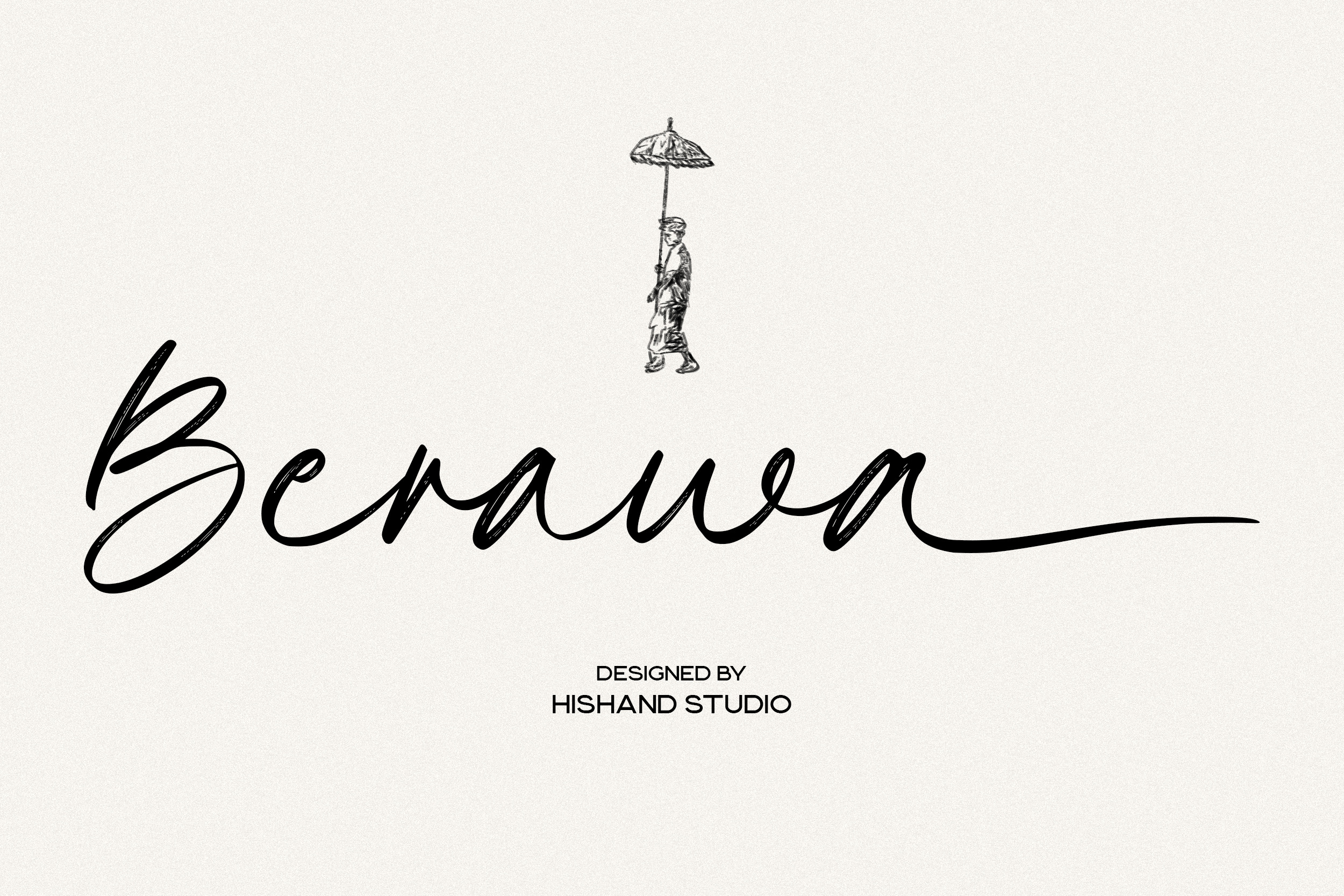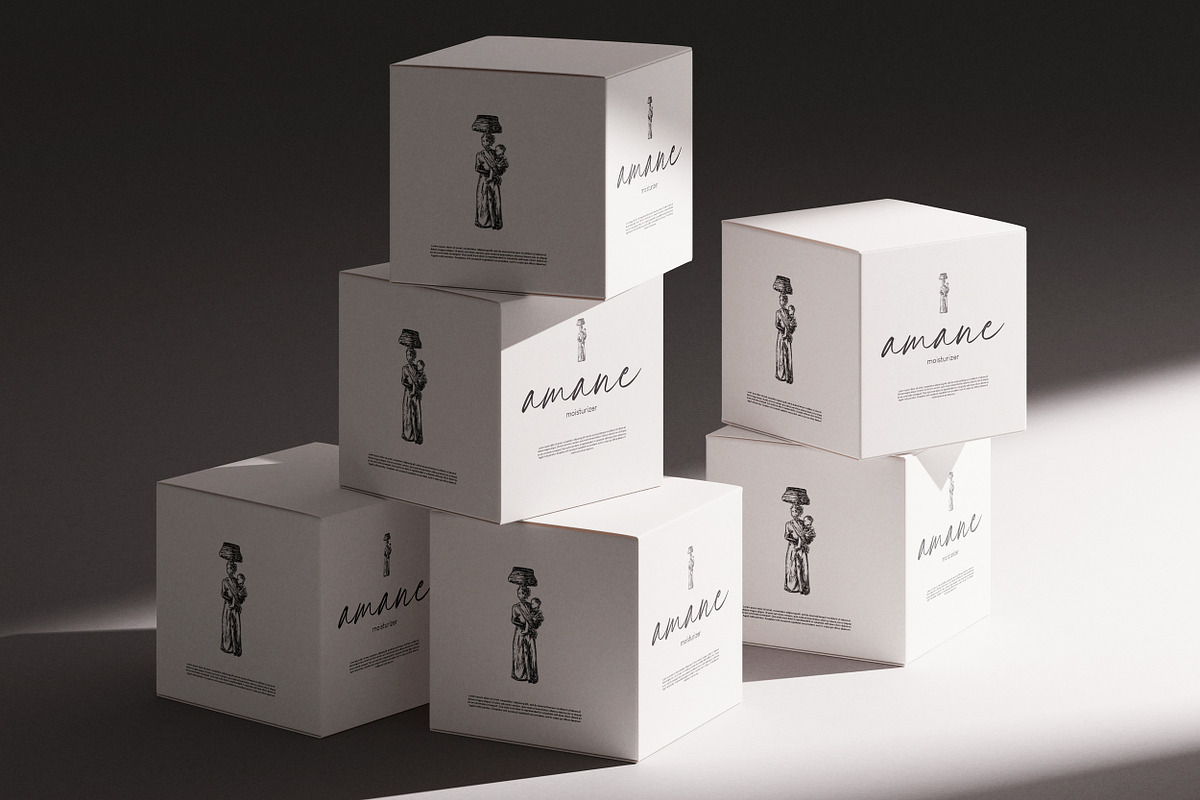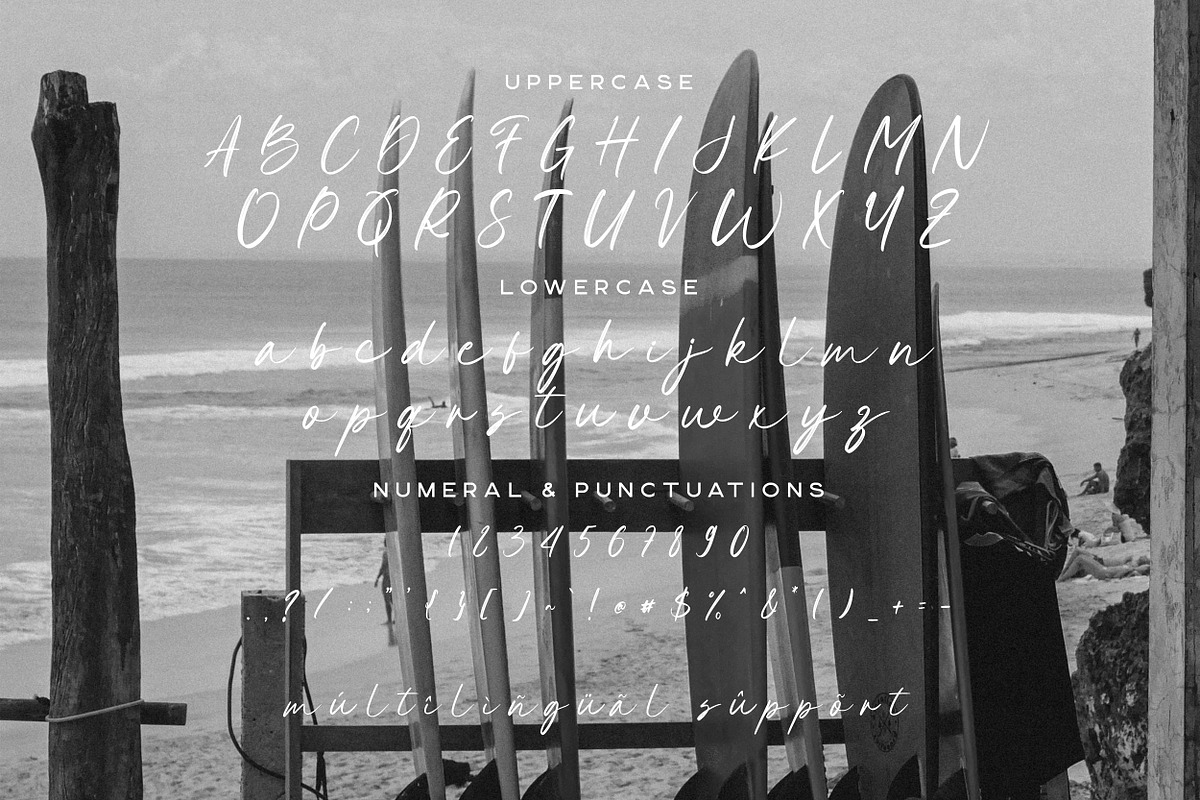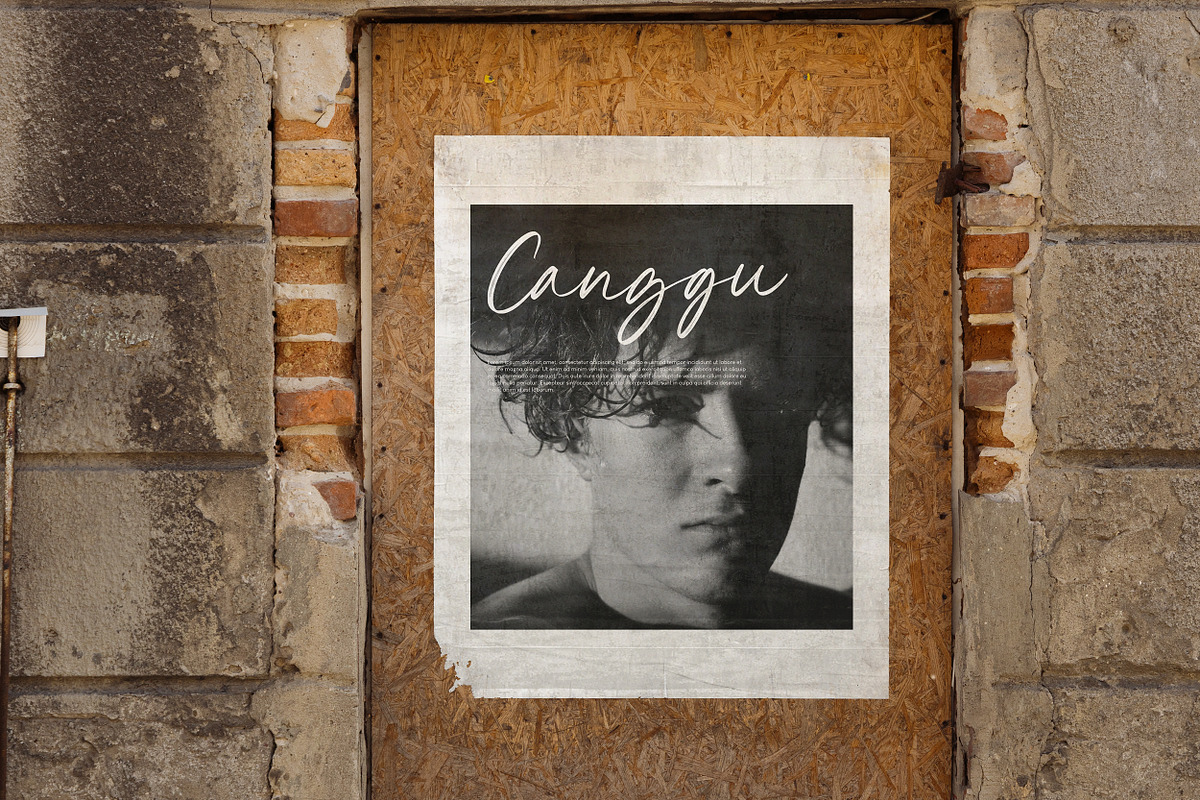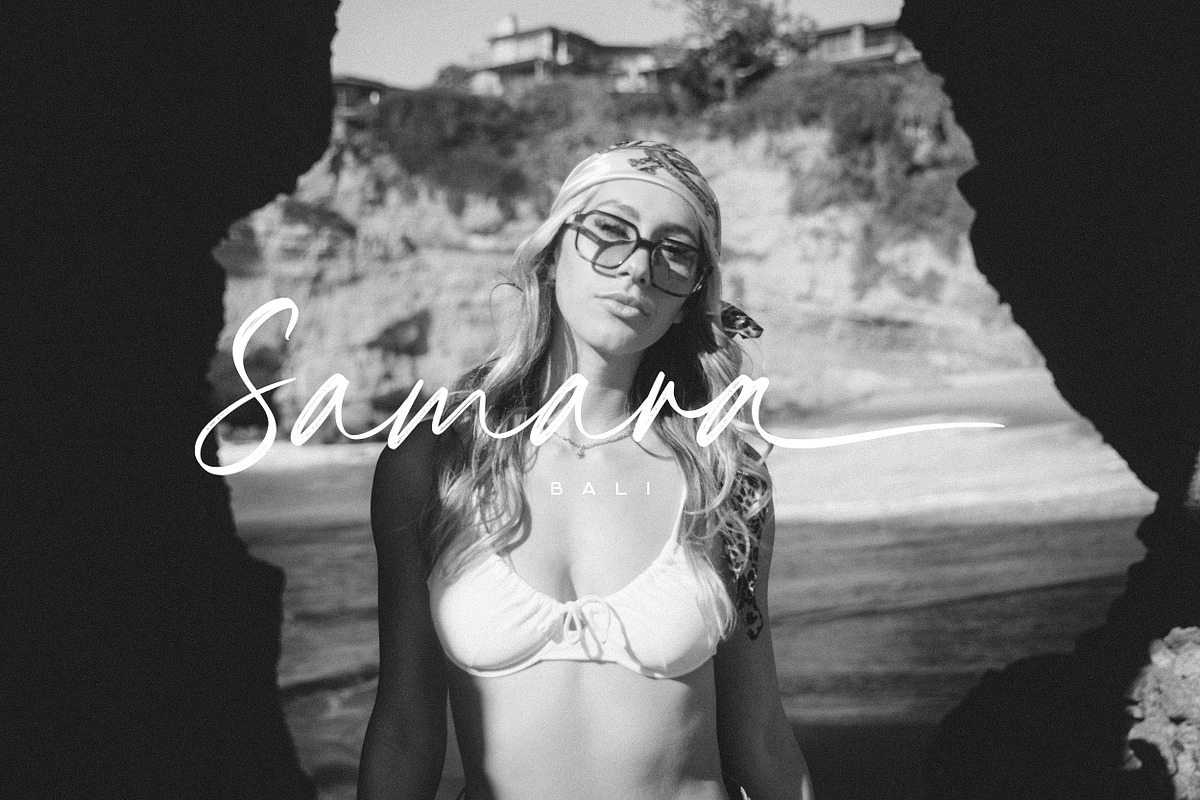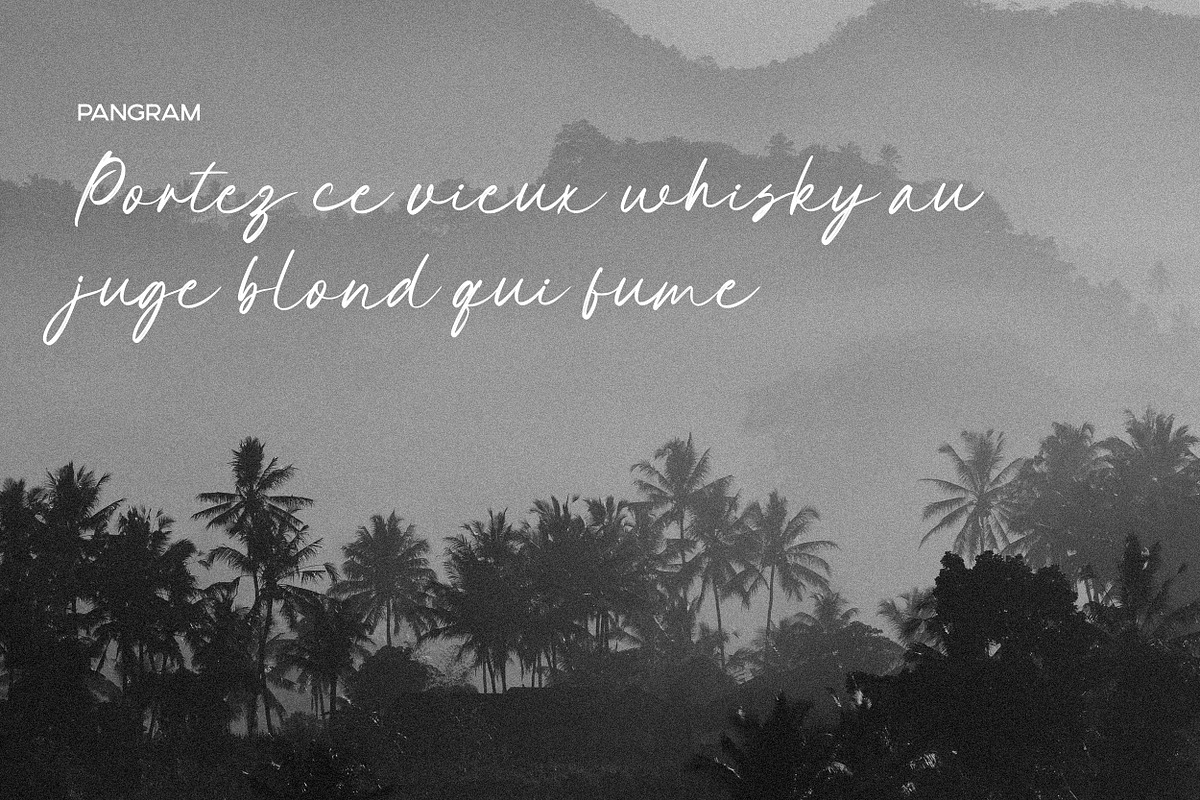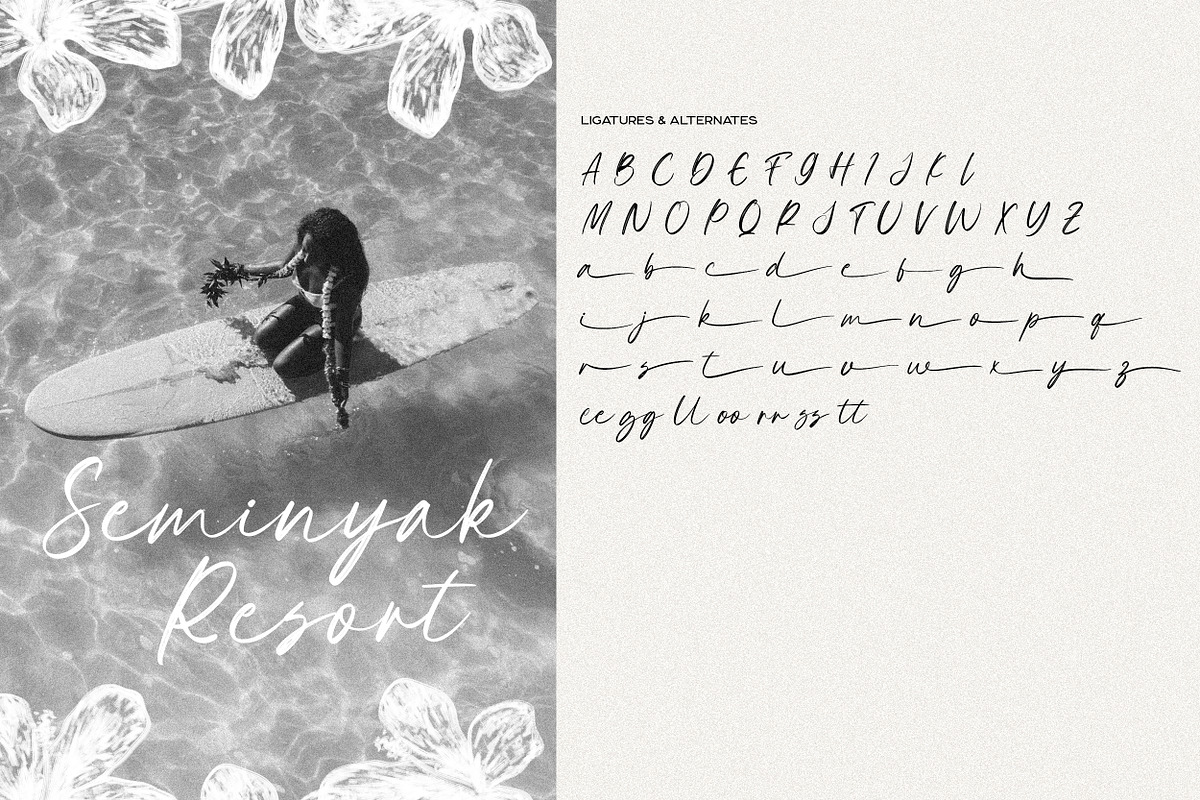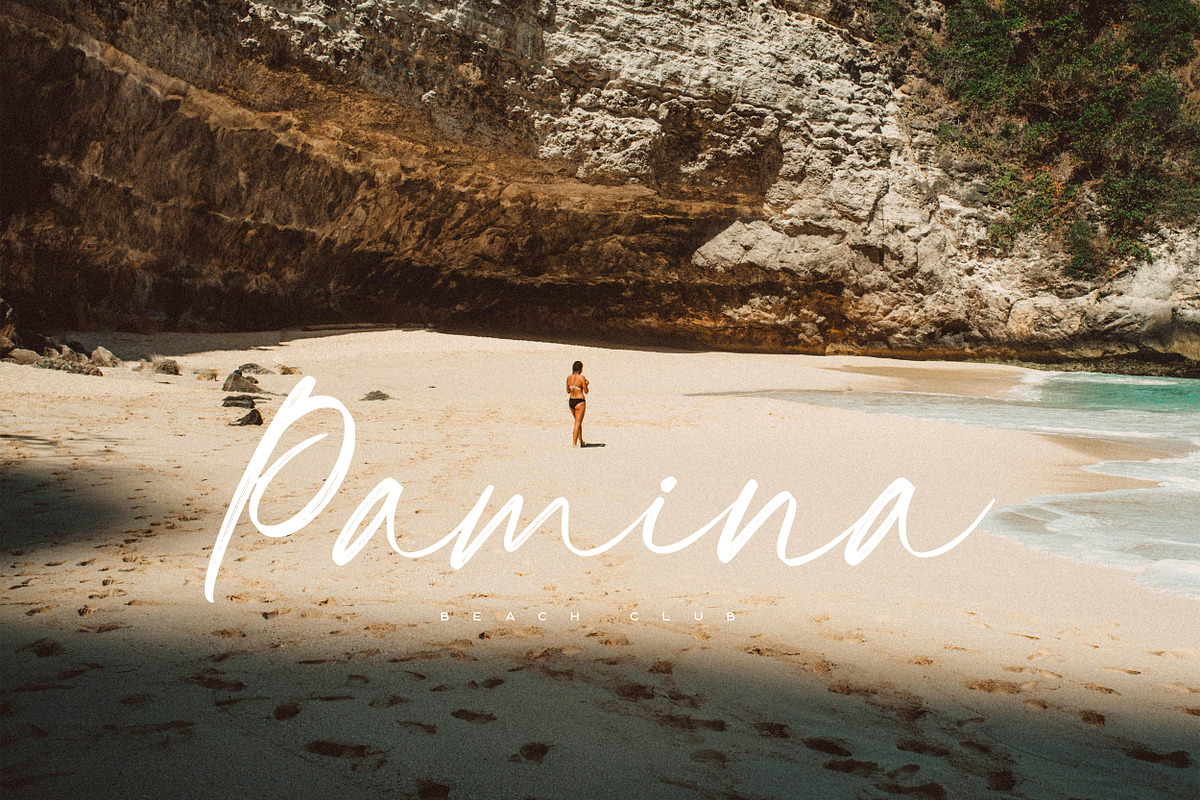
Berawa Aesthetic Brush Font
Berawa is an elegant brush script that captures the fluid, rhythmic energy of hand-painted lettering. It’s defined by elongated strokes and a distinct "dry ink" texture that gives it a high-end, artisanal feel. The font strikes a unique balance between sophisticated poise and raw, organic movement, making it feel less like a digital file and more like a custom piece of calligraphy.
The letterforms are graceful and airy, featuring sweeping curves that connect with a natural, effortless flow. While many brush fonts can feel heavy or aggressive, Berawa maintains a slender, refined silhouette that keeps the design feeling light and luxurious. These subtle irregularities and tapered ends add a layer of human touch, ensuring the typeface looks authentic and bespoke rather than rigid or repetitive.
Berawa is a perfect fit for minimalist branding and editorial layouts where the typography needs to do the heavy lifting. It works beautifully for boutique hotel identities, luxury wedding stationery, skincare packaging, and high-fashion headlines. Whether used for a signature-style logo or a delicate social media graphic, Berawa brings an understated chic and a sense of calm, timeless beauty to any project. Complete with
- uppercase
- lowercase
- alternates
- multilingual support